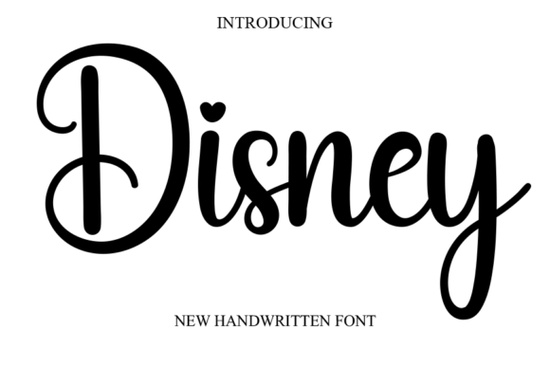
If you’ve ever wanted to add a touch of whimsy and charm to your designs without veering into cartoonish territory, the Disney Font might be exactly what you’re looking for. Despite its name, this isn’t an official Disney product it’s a stylish handwritten script inspired by classic calligraphy, with clean lines and a modern flair. It’s perfect for everything from wedding invitations to branding projects, especially if you're aiming for something that feels personal yet polished.
What makes this font stand out is how effortlessly it blends elegance with approachability. The letterforms have just enough bounce and variation to feel human-written, but they remain highly legible something many script fonts struggle with. Whether you’re designing greeting cards, packaging labels, or social media graphics, the Disney Font adds warmth without overwhelming your layout.
Who is this font best suited for?
This typeface works well for a range of creative professionals and hobbyists:
- Print-on-demand sellers creating mugs, T-shirts, or wall art with inspirational quotes or personalized messages.
- Small business owners who want distinctive branding for logos, menus, or product tags.
- Crafters and DIY enthusiasts making custom signs, scrapbook pages, or party decor.
- Graphic designers looking for a versatile script that pairs well with clean sans-serifs or classic serifs.
Because it’s a single-style script (not a full family with multiple weights), it shines most when used as an accent think headlines, short phrases, or decorative elements rather than body text.
How does it compare to other handwritten fonts?
On Creative Fabrica, there are dozens of beautiful script fonts, each with its own personality. For example, if you enjoy the friendly, bouncy feel of the Birdie Bash font, you’ll appreciate how the Disney Font offers a slightly more refined alternative. Similarly, those who love the rustic charm of the Farm Family font might find the Disney Font a great option when they need something cleaner and more urban.
It also complements seasonal designs beautifully. While the Weekend Santa font is ideal for holiday-specific projects, the Disney Font’s neutral elegance makes it usable year-round. And if you’re building a collection, consider pairing it with the Farm Family Bundle for contrast mixing casual and sophisticated scripts can create dynamic, eye-catching layouts.
Is it easy to use for beginners?
One tip: because it’s a connected script, spacing matters. Some letters may overlap if typed too quickly in certain programs. To avoid this, use software that supports OpenType features or manually adjust letter spacing for critical projects like logos or engraved items.